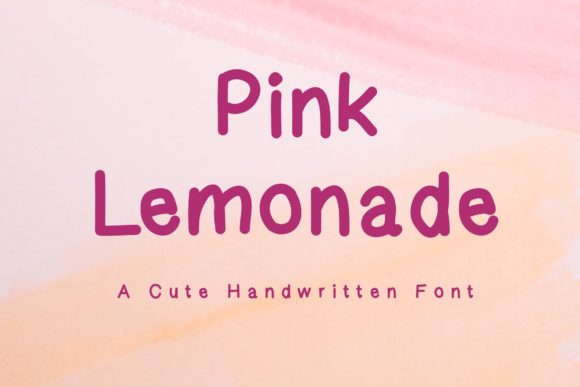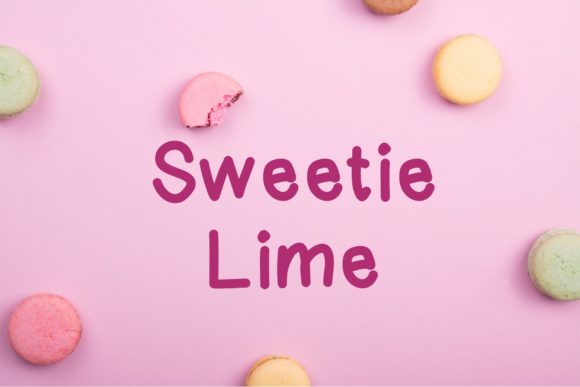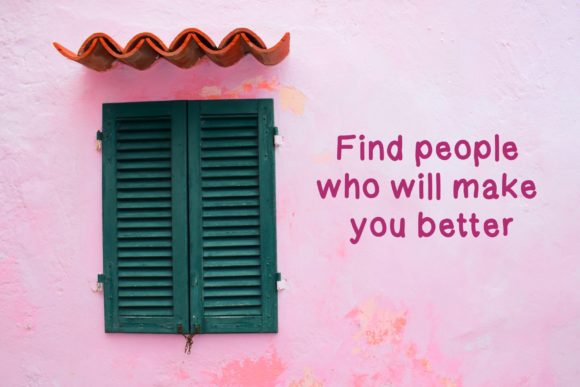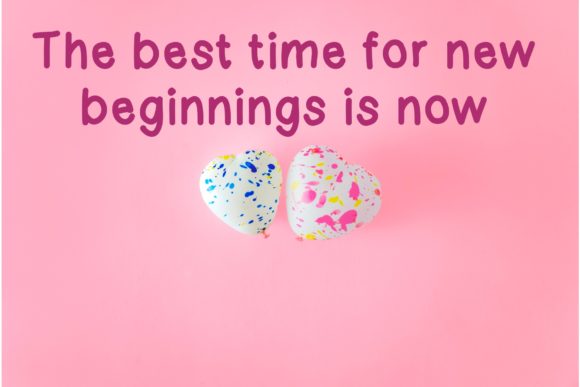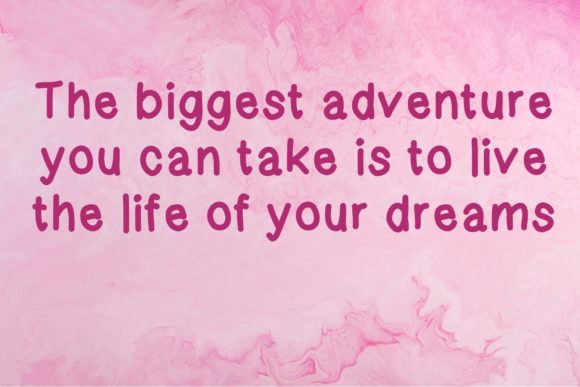
About Pink Lemonade Font
“Pink Lemonade” is a font that radiates a delightful and friendly aura, bringing a splash of joy to every project it graces. With its handwritten charm, it encapsulates the essence of approachable creativity. Its sweet and natural style makes it a versatile addition to a diverse range of designs, giving you the creative freedom to let your imagination run wild.
The allure of “Pink Lemonade” lies in its ability to infuse any project with a sense of warmth and authenticity. Its unique character adds a personal touch that resonates with a wide audience. Whether you’re crafting vibrant wedding invitations, designing captivating stationary art, or curating eye-catching social media posts, this font serves as a conduit for your creative expressions.
The true beauty of “Pink Lemonade” is its limitless potential. Its friendly demeanor and natural strokes create a harmonious balance that blends seamlessly with various design contexts. The font’s versatility extends to any project that requires a touch of creativity and a hint of personal flair. The only limitation is the boundaries of your imagination.
Allow “Pink Lemonade” to be your creative companion as you embark on design endeavors. Let its friendly and approachable style elevate your work, connecting with your audience on a genuine level. With every stroke of this font, you’re inviting people to experience the heart and soul you pour into your creations. Embrace the endless possibilities that “Pink Lemonade” offers, and watch as it transforms your designs into vibrant and inviting masterpieces.